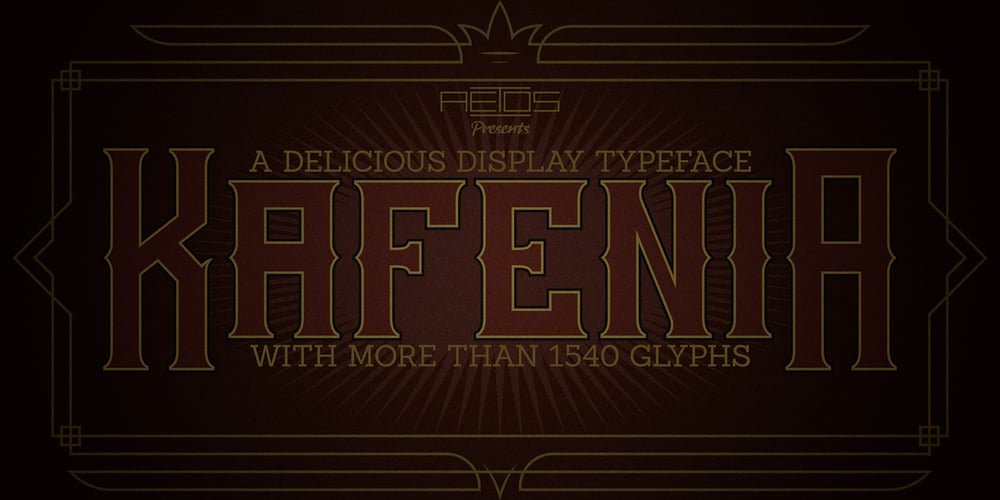
Kafenia
Kafenia font
Kafenia Font Family was designed by Nick Margaritis and published by A.E.T.O.S. Kafenia contains 1 styles and family package options. Kafenia is a geometric display typeface, consisting of capitals and small capitals only. Inspired by the combination of vintage and decorative aesthetics with squarish and compact look, Kafenia claims to be a classy and old stylish slab serif. With more than 1540 glyphs Kafenia is a great tool for your designing needs. Flexible, easily wrapped and reformed with plenty of open type features, Kafenia aims to provide versatility and lots of options for unique results in logos, posters, headlines and every design inspiration you dare bring to life.